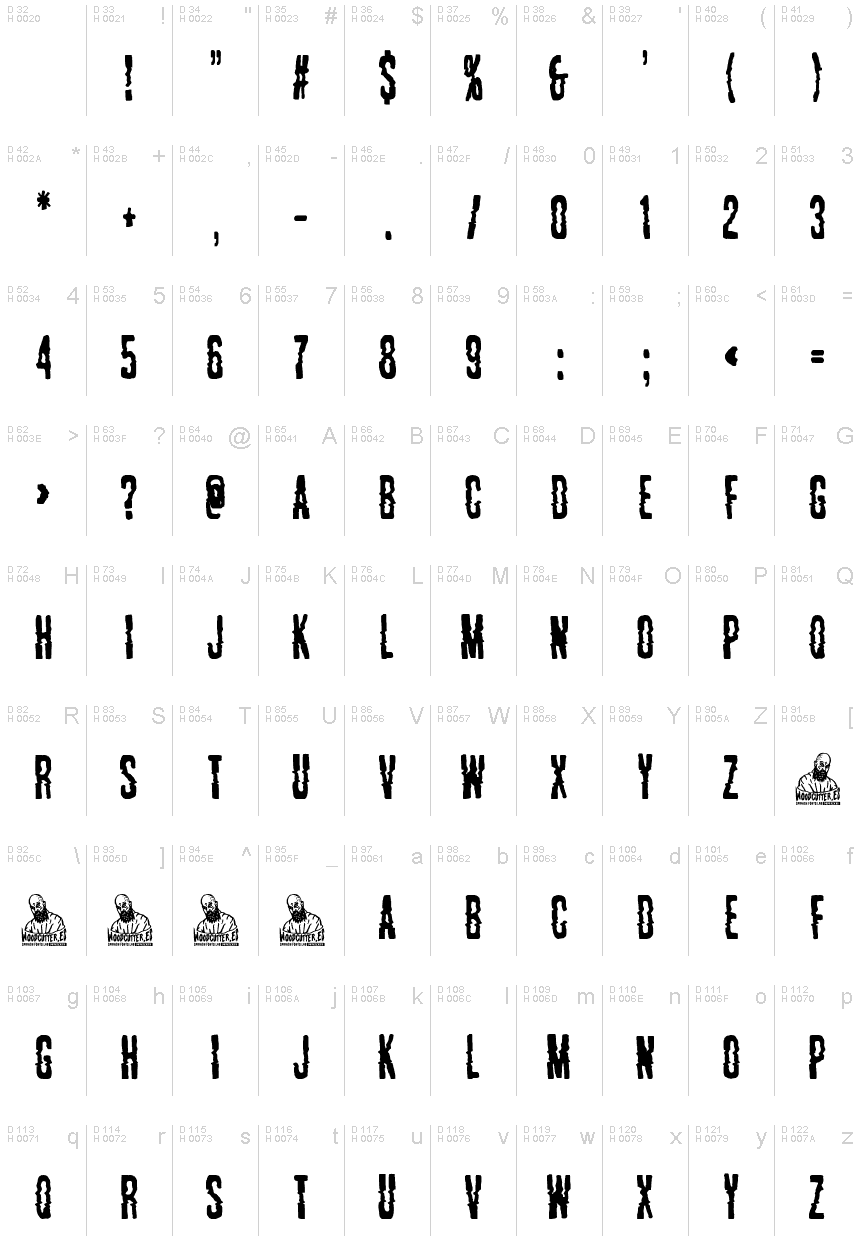
Glitch Paradise
Glitch Paradise, a captivating creation by Woodcutter, is a display font that exudes an edgy and rebellious vibe. With its distorted style, this semi-bold typeface adds an electrifying touch to any project it graces. Its extra-condensed width allows for maximum impact in minimal space.
Ideal for album covers, gaming logos, and urban-themed designs, Glitch Paradise injects a dose of glitchy energy into your artwork. It's the perfect choice for brands seeking an avant-garde aesthetic or looking to stand out from the crowd with its unique distorted appeal.